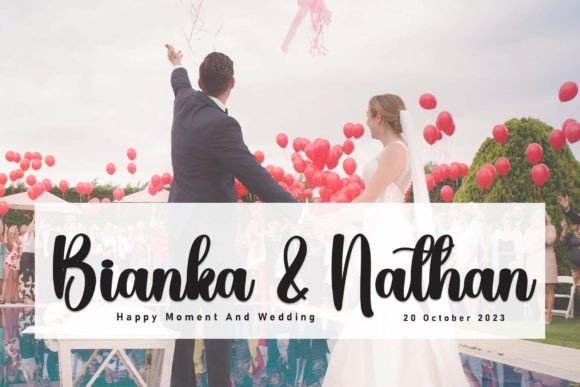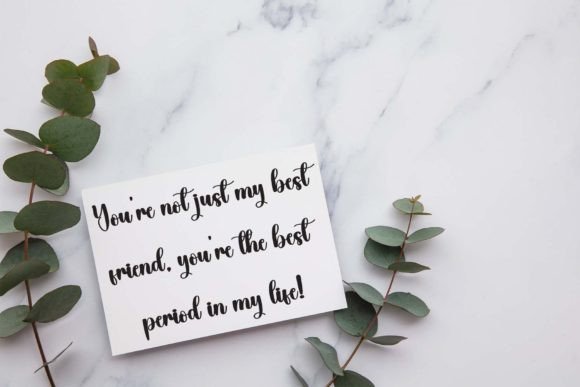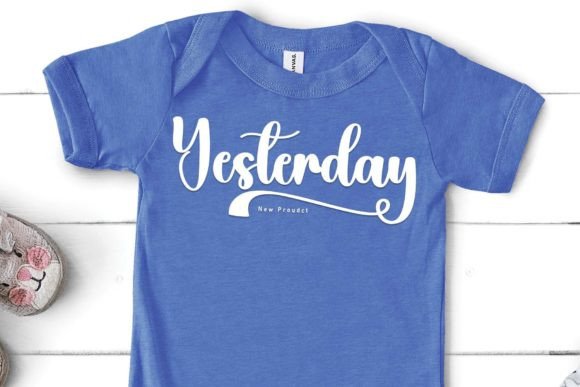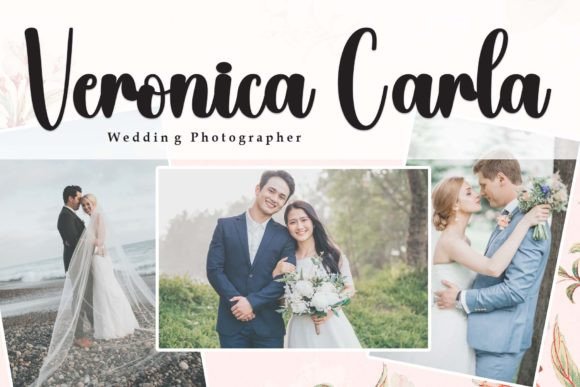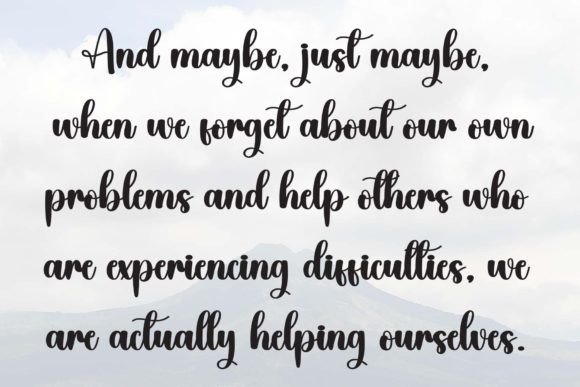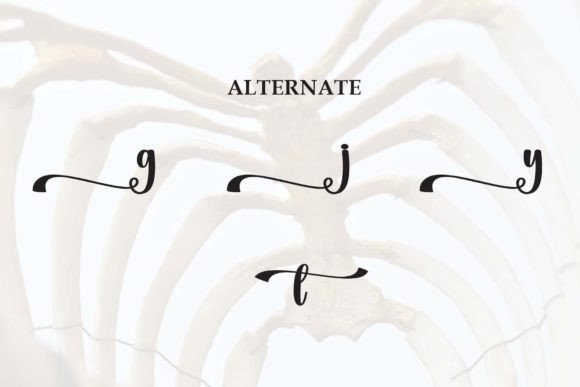
The Anatomy of a Beautiful Font: A Deep Dive into Anatomy Font
I’ll never forget the moment I stumbled upon the perfect font for a project. I was working late, surrounded by design boards and empty coffee cups, trying to meet a tight deadline. My client wanted a font that was both playful and professional, and I was determined to find it. That’s when I discovered Anatomy Font, a sweet and friendly handwritten font that stole my heart. In this article, I’ll share my love for Anatomy Font, its unique features, and how to make the most of it in your designs.
Anatomy Font is a versatile and charming font that can elevate any design. Here’s what I love about it:
• ✨ Natural and unique style: Anatomy Font has a distinct, hand-crafted feel that sets it apart from other fonts.
• ✅ Highly legible: Despite its playful nature, Anatomy Font is surprisingly easy to read, even at smaller sizes.
• 🎨 Versatile: This font can be used in a wide range of designs, from branding and packaging to invitations and social media graphics.
While Anatomy Font is an excellent choice, it’s not without its quirks:
• 🤔 Limited formal settings: Due to its playful nature, Anatomy Font might not be the best fit for formal documents or corporate designs.
• ⚠️ Some letters may require adjustment: Depending on the word or phrase, some letters might need to be adjusted for optimal spacing and readability.
3. Experiment with OpenType features, such as Stylistic Alternates, to add visual interest to your text.
The Story Behind Anatomy Font
Anatomy Font was designed with the intention of creating a friendly, approachable font that would bring a touch of warmth to any design. The designer, inspired by the natural world and the beauty of handwritten letters, crafted a font that is both unique and highly legible. With its sweet and gentle feel, Anatomy Font is perfect for designers, crafters, and creative hobbyists looking to add a personal touch to their work.
What is the best way to use Anatomy Font in a design? Anatomy Font is versatile and can be used in a variety of designs, from branding and packaging to invitations and social media graphics. Experiment with different OpenType features and glyphs to add visual interest.
Is Anatomy Font suitable for body text? While Anatomy Font is highly legible, it may not be the best choice for long blocks of body text. It’s better suited for headlines, titles, and short paragraphs.